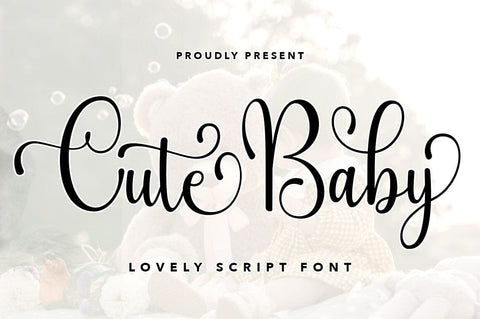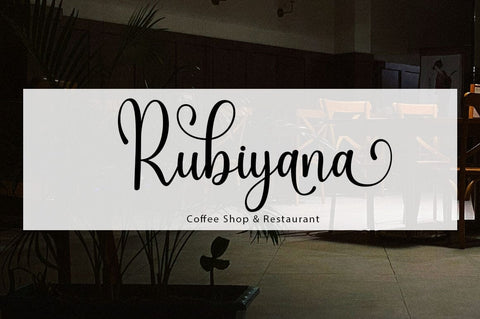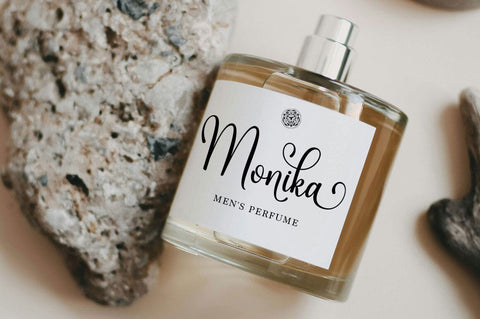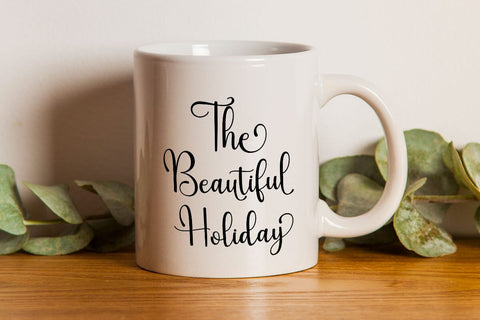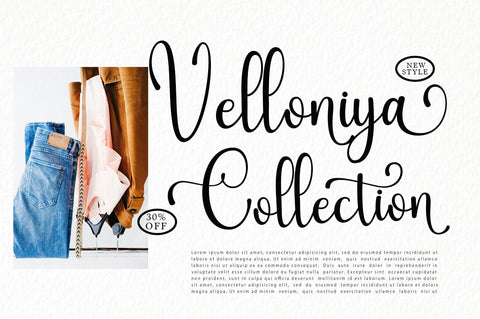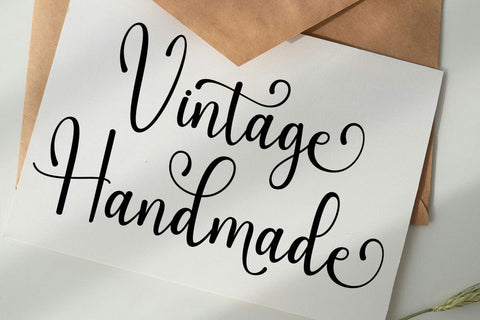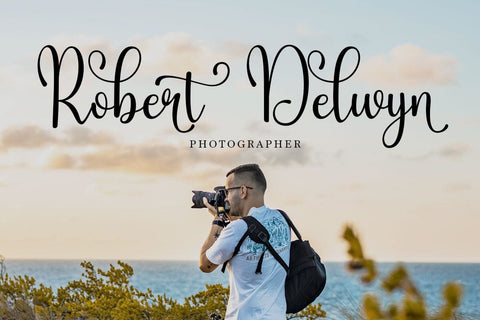
Cute Baby Script Font
Cute Baby Script is a modern script typeface with a timeless, elegant touch. Designed to be sleek, clean, and feminine, this font exudes glamour and sophistication while remaining simple and highly legible. Its graceful letter connections and smooth strokes create a luxurious handwritten feel, perfect for adding charm and refinement to any project.
This font comes with stylish alternates for select characters, giving you creative flexibility to customize your designs. The classic script style makes it an excellent choice for a wide range of applications, including wedding invitations, greeting cards, fashion branding, beauty and makeup logos, restaurant menus, product packaging, stationery, magazines, books, and advertising materials.
Whether you’re creating elegant branding, romantic designs, or professional editorial layouts, Cute Baby Script ensures your text looks polished, beautiful, and unforgettable.